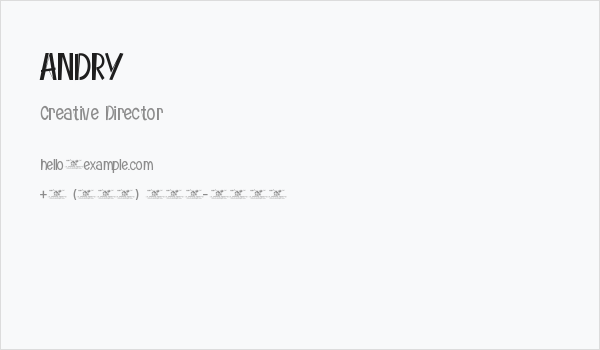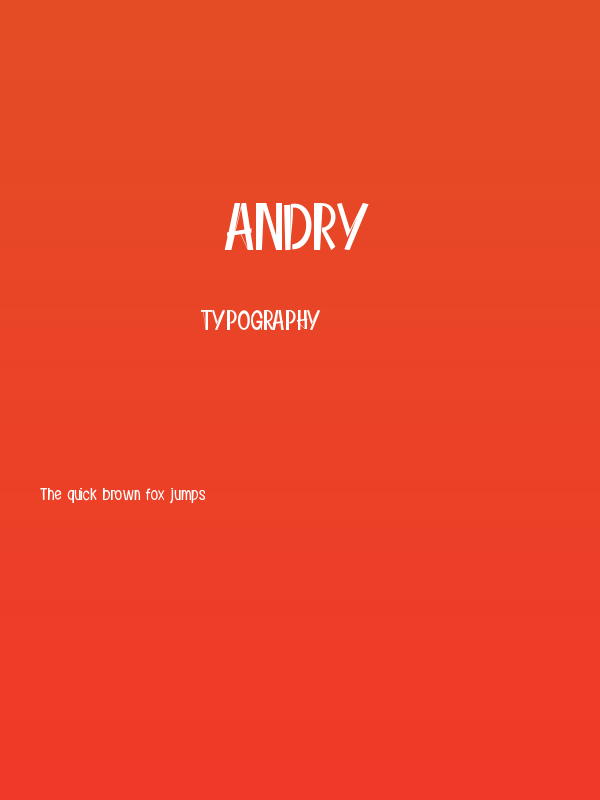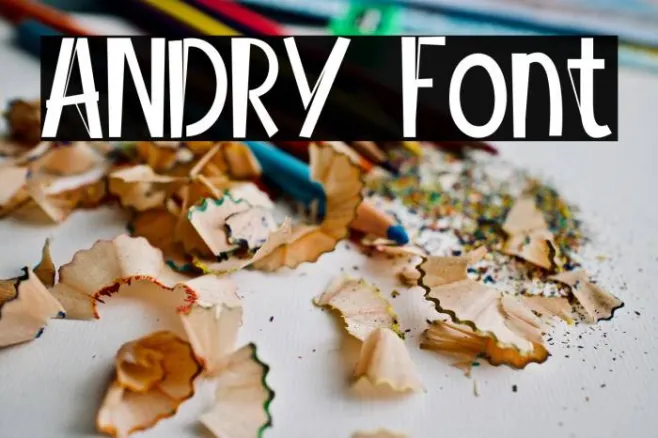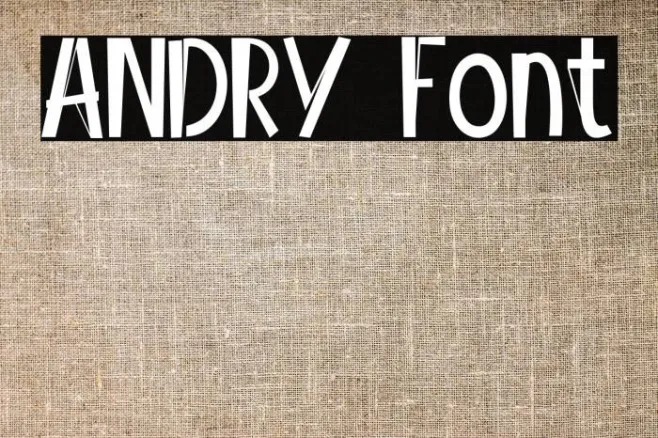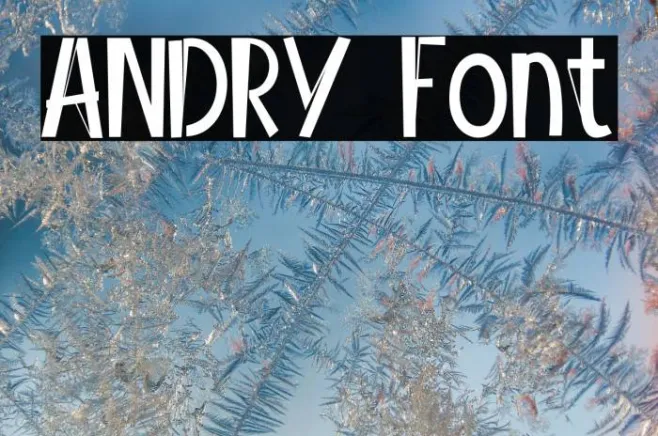
ANDRY Font
ANDRY Description
This font features a playful and dynamic style with a mix of sharp angles and smooth curves. The uppercase letters are bold and slightly condensed, giving a strong presence, while the lowercase letters maintain a whimsical and approachable feel. The unique character shapes, such as the slanted 'A' and the curved 'g', add a distinctive personality. The font includes a full set of uppercase and lowercase letters, numbers, and a variety of special characters, making it versatile for different design needs.
| Overall Style | Playful, Modern |
| Proposed Projects | Ideal for children's books, playful branding, creative posters, and any project that requires a fun and engaging typeface. |